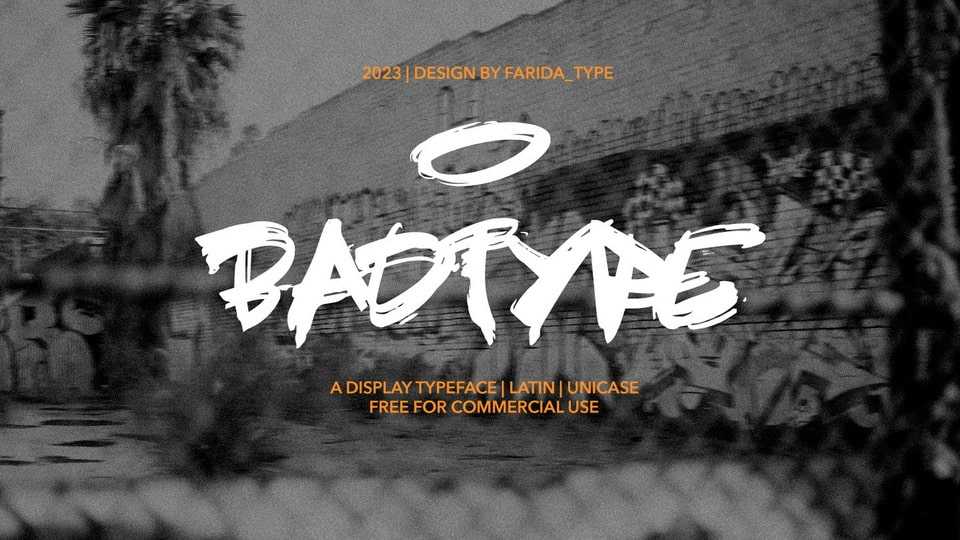
Download BadType font, a bold hand lettered typeface inspired by street style, graffiti, rap and hip hop culture. BadType font turned out to be brave, not playing by the rules.
Designer: Farida